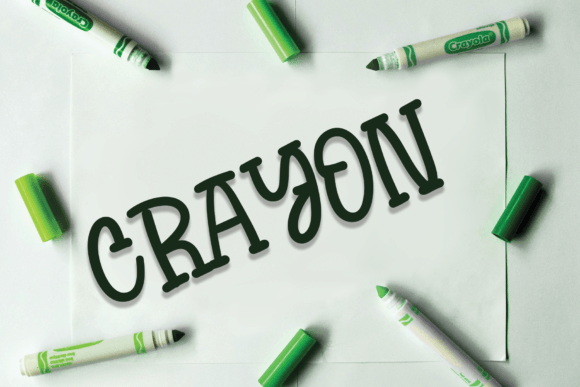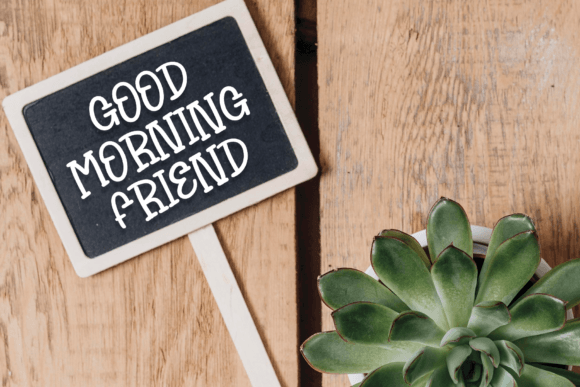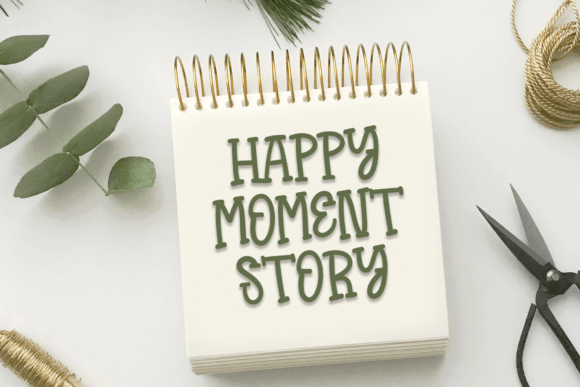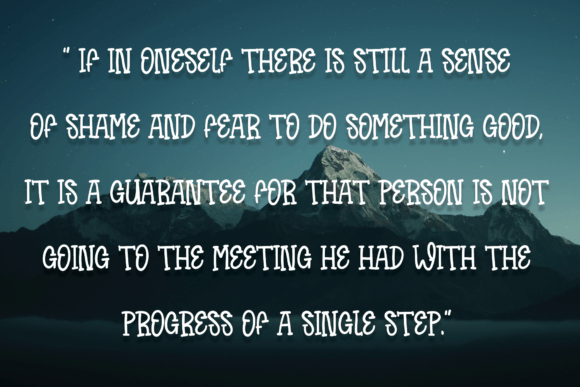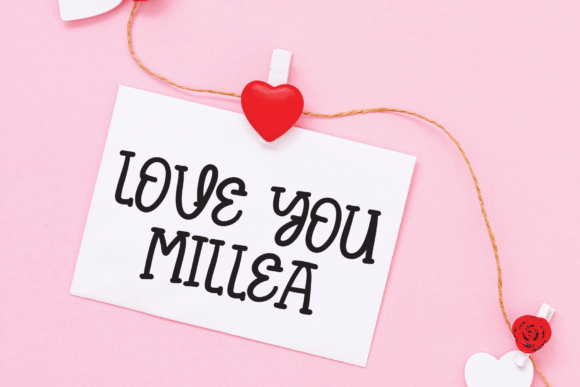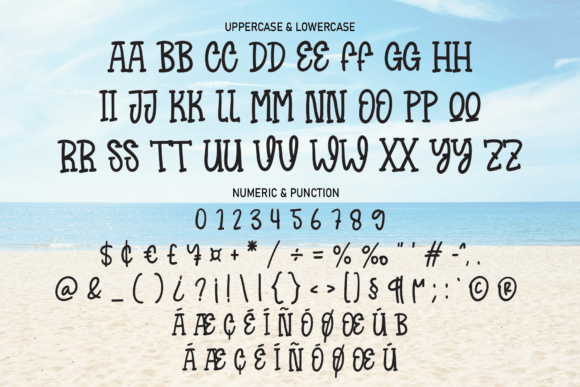
Where Creativity Meets Whimsy: Uncovering the Magic of Beach and Sand Font
Have you ever been inspired by the simple joys of a summer day at the beach? The sound of the waves, the smell of saltwater, and the feeling of sand between your toes can spark some of the most creative ideas. For designers, it’s not just about capturing the essence of a moment, but also about conveying emotions and moods through typography.
Enter Beach and Sand Font, a friendly and quirky handwritten font that embodies the carefree spirit of the beach. This delightful font is perfect for creating whimsical and cute designs that transport viewers to a world of sunshine and happiness. Whether you’re designing a children’s book, a beach-themed brochure, or a social media campaign, Beach and Sand Font is sure to bring a smile to your audience’s faces.
As a valuable addition to any designer’s toolkit, Beach and Sand Font offers endless possibilities for creative expression. Its versatility, charm, and playfulness make it a must-have for designers looking to add a touch of personality to their projects.
Beach and Sand Font Key Features
- Font Family: A custom-designed font family with 6 styles (Thin, Light, Regular, Medium, Bold, Black) to cater to various design needs.
- Font Size: Supports font sizes from 8pt to 120pt, making it suitable for various applications, including signage, advertising, and digital media.
- Unique Characteristics: The font’s unique, hand-drawn design and subtle texture elements evoke a sense of beachy, organic feel, perfect for coastal-themed projects.
Beach and Sand Font Review
First off, I love the creative vibe of the Beach and Sand Font. ✨ It’s perfect for any beach-themed project or design that needs a touch of tropical flair. The font is highly customizable, with multiple weights and styles to choose from. ✨ This makes it easy to create a cohesive visual identity for your design.
- Highly customizable with multiple weights and styles
- Perfect for beach-themed projects or designs
- Easy to use and integrate into your design
However, I do have a few concerns about the font. ⚠️ For one, it’s not as versatile as some other fonts I’ve worked with. While it’s great for beach-themed designs, it may not be the best choice for more formal or professional projects. Additionally, some of the letters may not be as clear or legible at smaller font sizes. ⚠️
Overall, I think the Beach and Sand Font is a great choice for designers who need a fun and creative font for their beach-themed projects. While it may have some limitations, it’s easy to use and highly customizable. With a little bit of creative flair, this font can really help bring your design to life.
To get the most out of the Beach and Sand font, consider the following tips:
– Use it for beach-themed designs, such as beach invitations or summer posters.
– Pair it with other beach-inspired fonts for a cohesive look.
– Experiment with different font sizes and colors to create visual interest.
The Beach and Sand font is commonly used for:
– Beach-themed designs, such as beach invitations or summer posters.
– Travel brochures or advertisements for beach destinations.
– Summer-themed social media graphics or website headers.